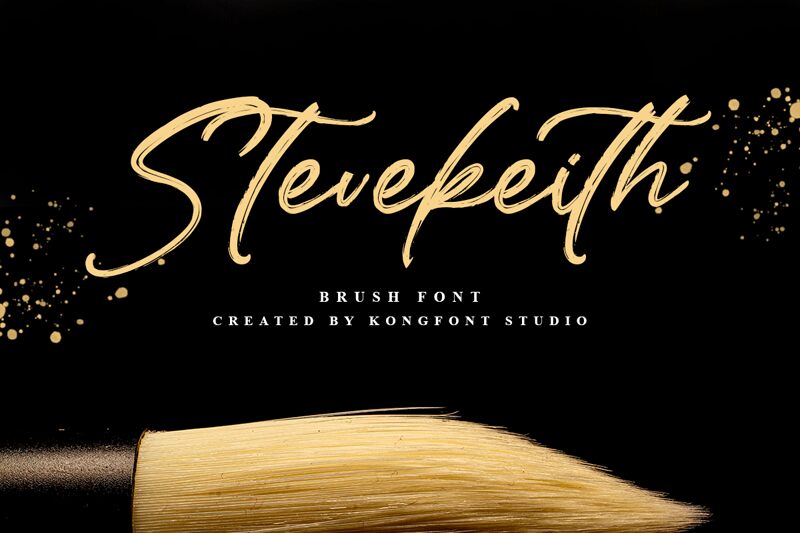
Stevekeith
Stevekeith, a mesmerizing brush font designed by Kong Font, exudes an enchanting semi-light weight that adds finesse to any project.
Its delicate strokes and graceful curves capture attention effortlessly, making it ideal for romantic wedding invitations, elegant branding designs, and sophisticated stationery. This versatile font lends an air of refinement to restaurant menus, fashion magazines, and upscale product packaging. Stevekeith's handcrafted appeal brings warmth and personality to social media graphics, inspiring quotes, and artistic posters.
Elevate your creative endeavors with the captivating beauty of Stevekeith brush font.